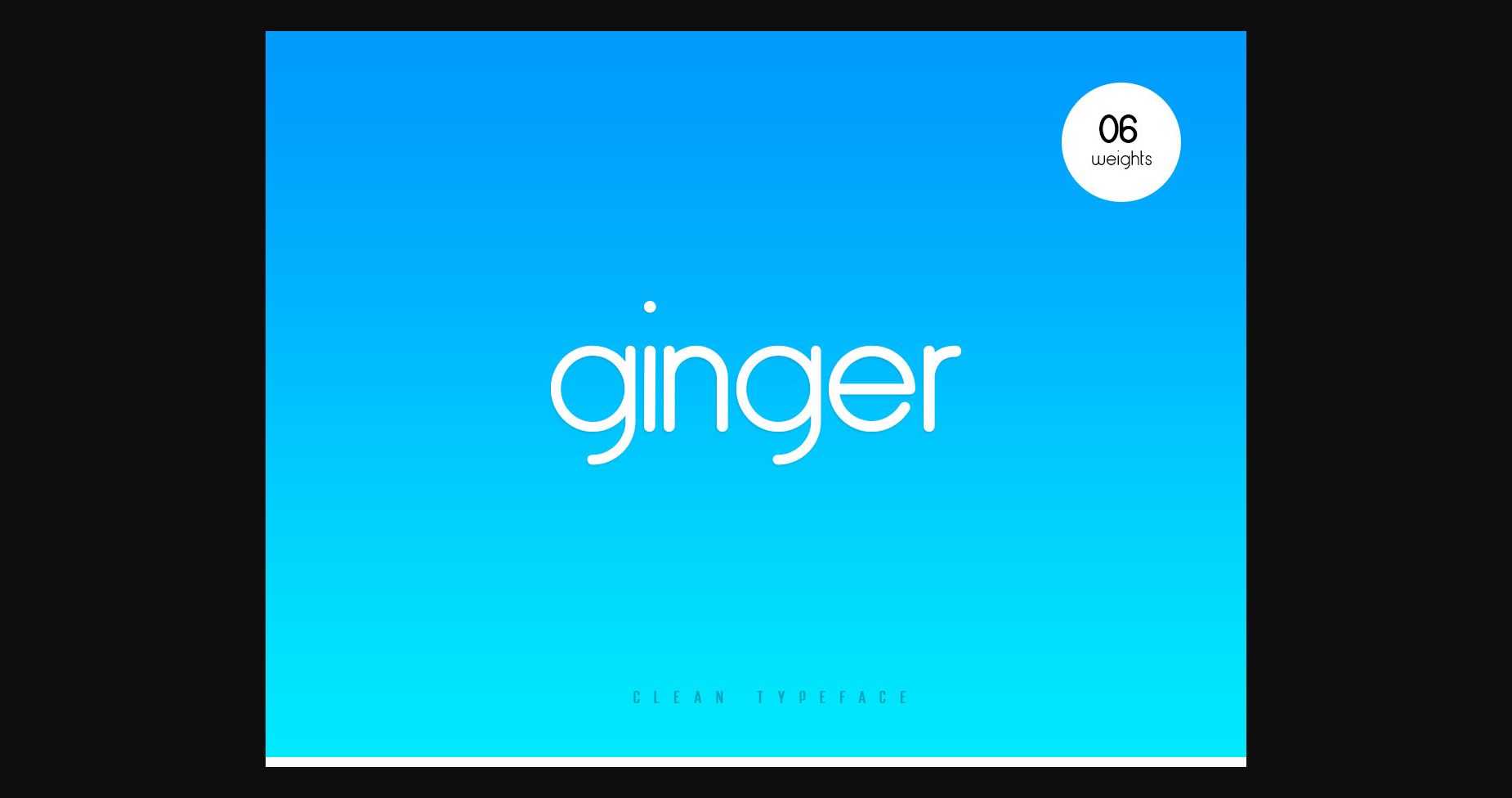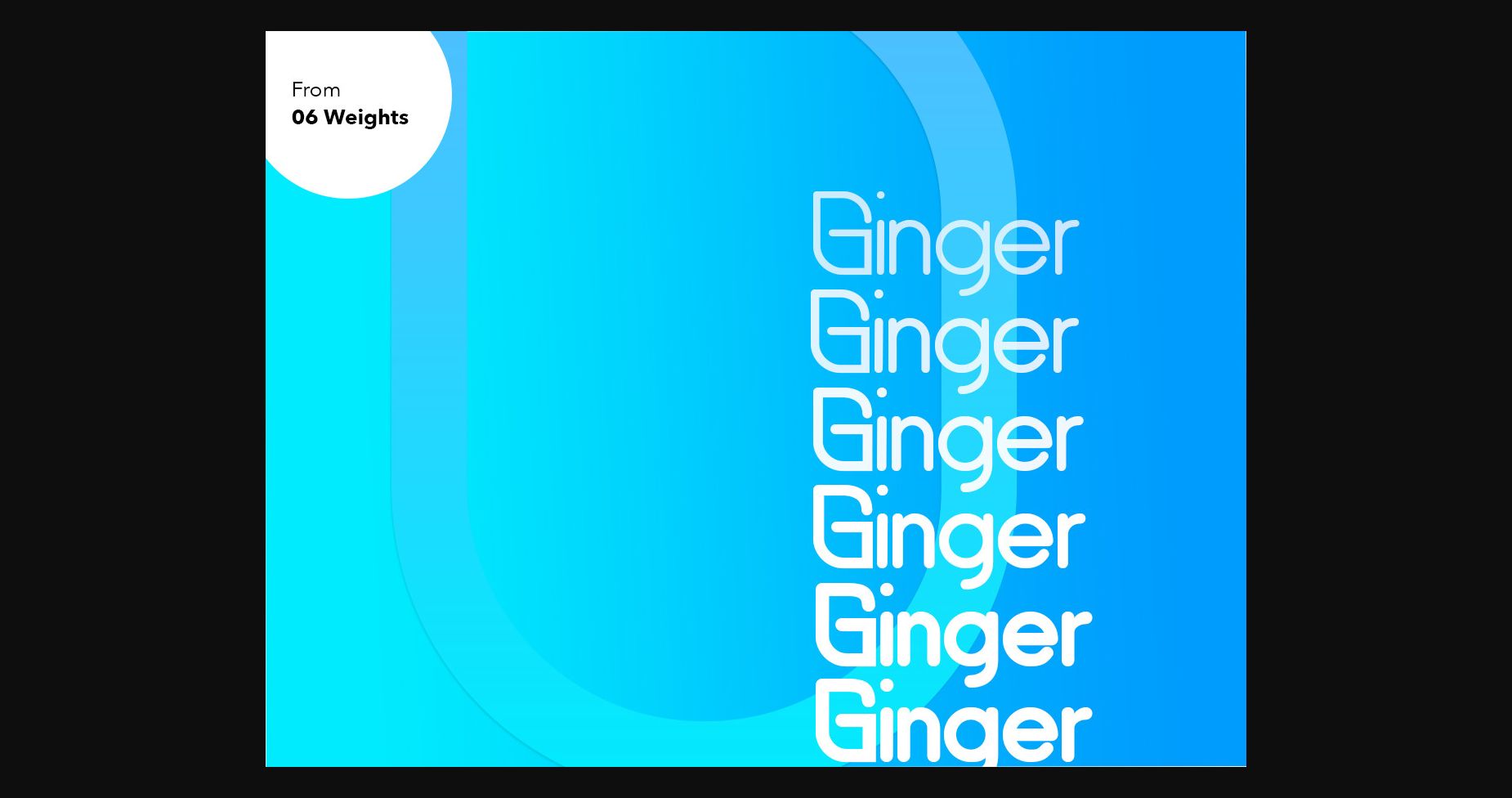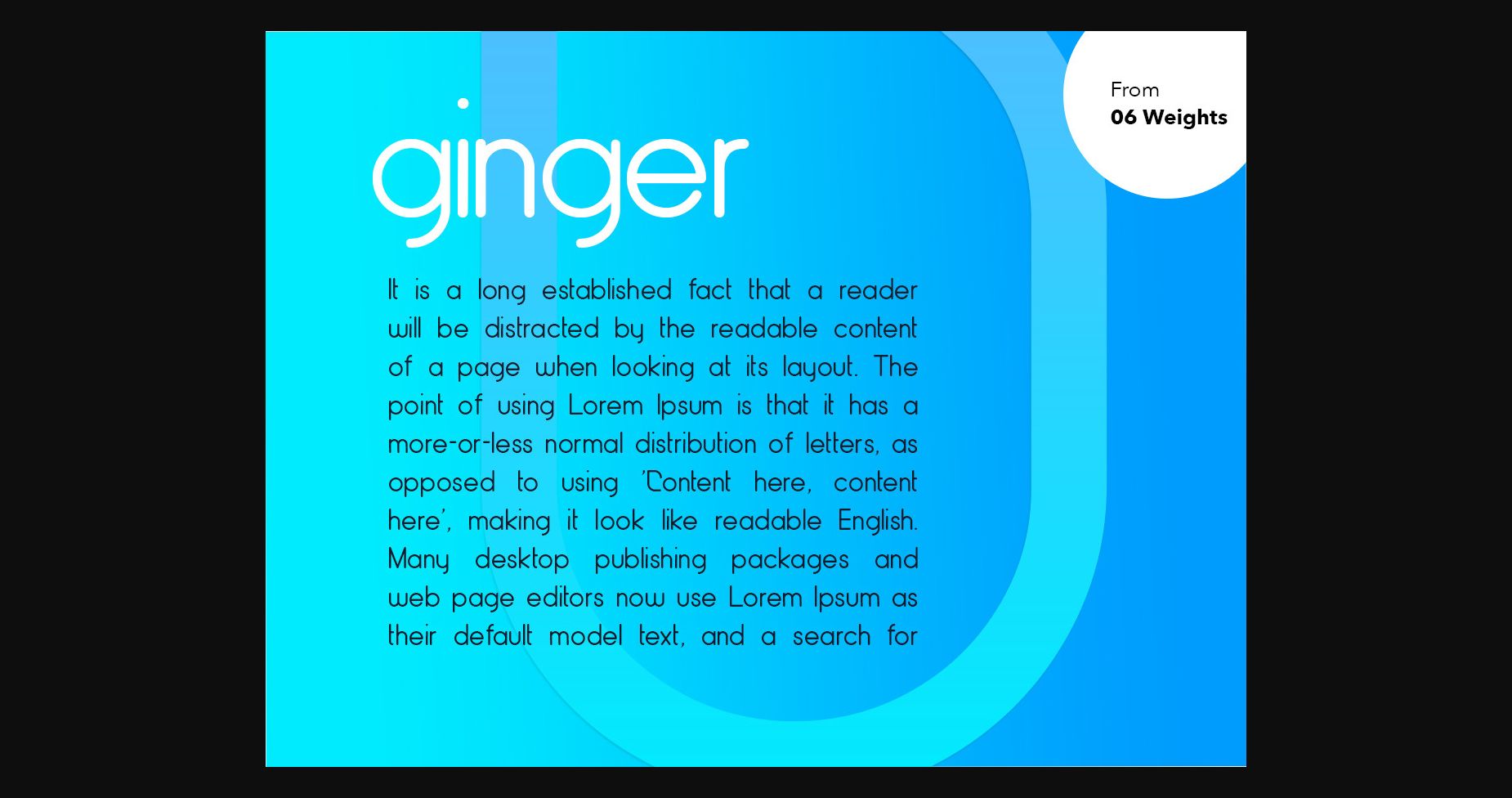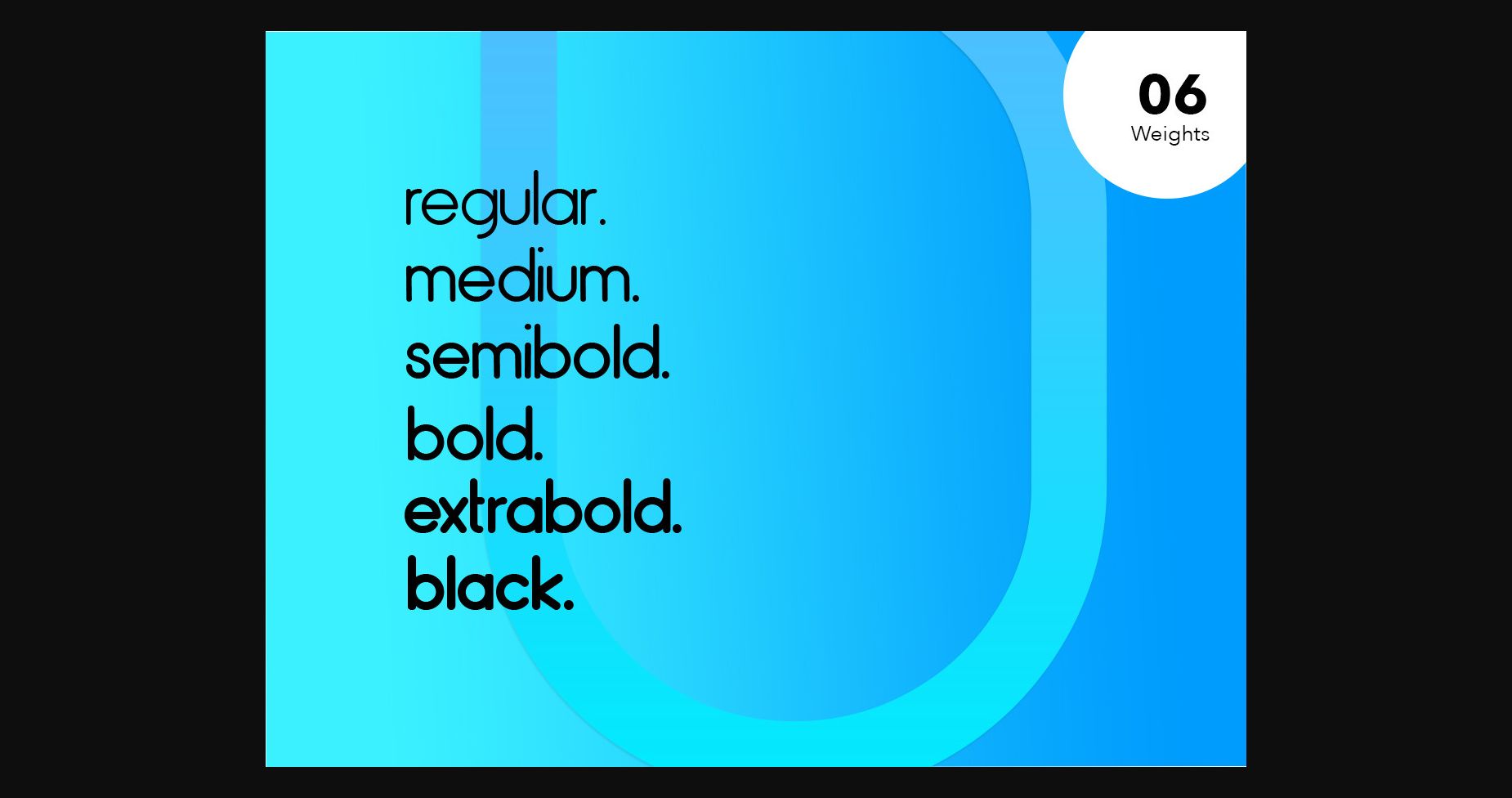
HomeSans Serif FontsGinger Font Sans Serif Fonts Ginger Font FacebookXPinterestWhatsApp 1 of 6 ... Ginger Font Poster 2... Ginger Font Poster 3... Ginger Font Poster 4... Ginger Font Poster 5... Ginger Font Poster 6... About Ginger Font Ginger is a minimal and neat sans serif font. It can easily be matched to an incredibly large set of projects, so add it to your creative ideas and notice how it makes them stand out! DOWNLOAD NOW People also explored Ruqm Font Autography Font Jovanka Script Font Glamlips Font Black Ghost Font Kwoto Semi-Bold Font Groovy Love Font Homerun Script Font Tonefomars Font 268 0 TagsGingerGinger Font Previous articleCharlotte FontNext articleCambai Minimalist Font LEAVE A REPLY Cancel reply Comment: Please enter your comment! Name:* Please enter your name here Email:* You have entered an incorrect email address! Please enter your email address here Website: Save my name, email, and website in this browser for the next time I comment. Personal Use Free Planet Benson 2 Personal Use Free Read more about this font Royal Bengal Tiger Personal Use Free Read more about this font Strings Personal Use Free Read more about this font Breakaway Personal Use Free Read more about this font BLOG How to Install and Use Fonts on Windows, macOS, and Web Projects How to Install and Use Fonts on Windows, macOS, and Web Projects Fonts are a crucial part of design and branding. Whether you’re designing a... Top 7 Google Fonts Alternatives for Faster and Privacy-Friendly Web Design (2025) The 10 Best Handwriting Fonts to Add Personality to Your Designs Where to Buy American Fonts Online in 2024